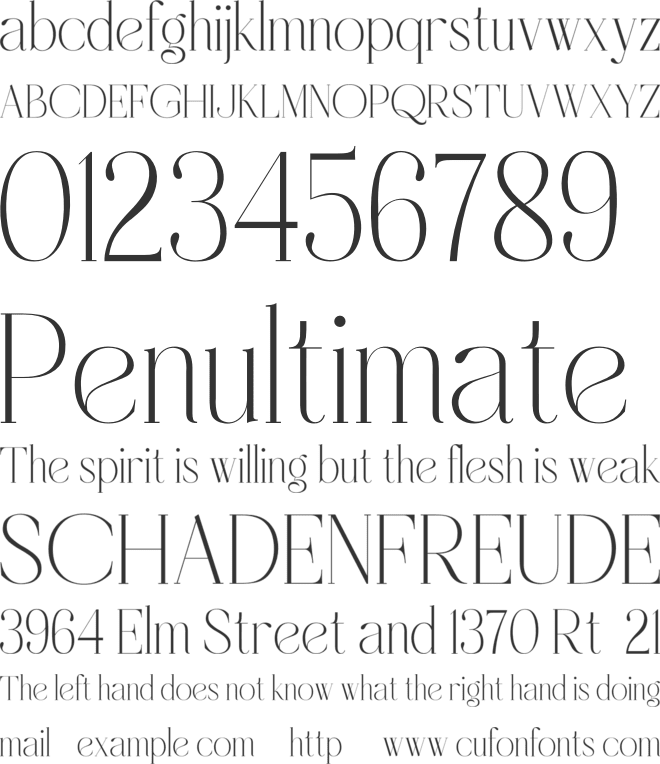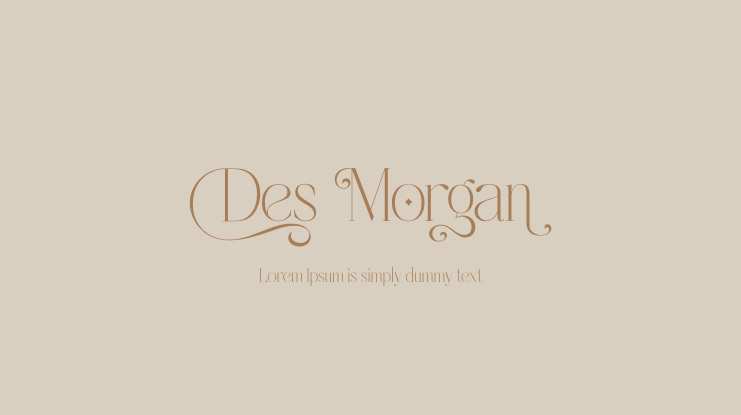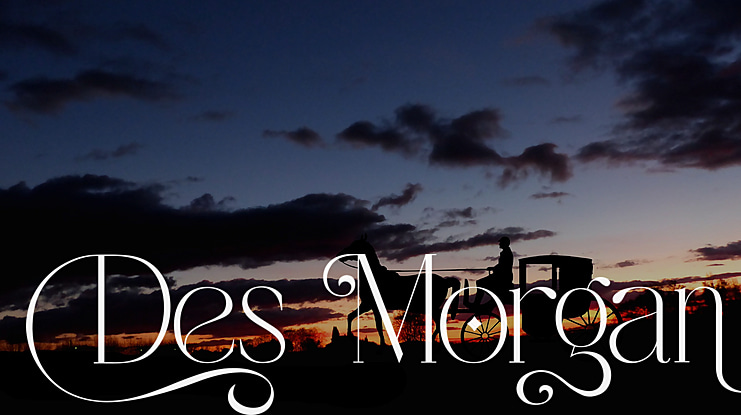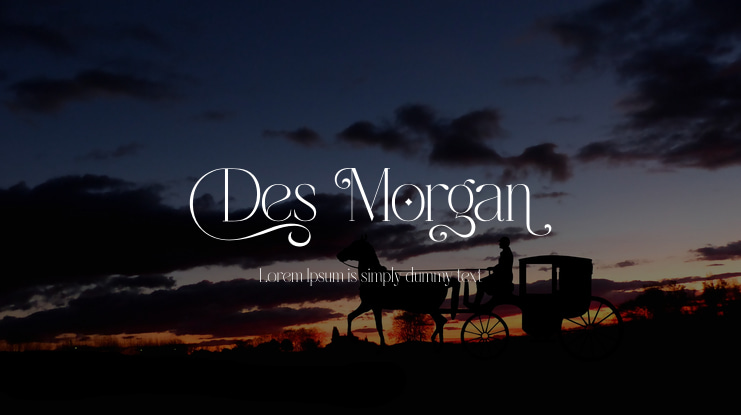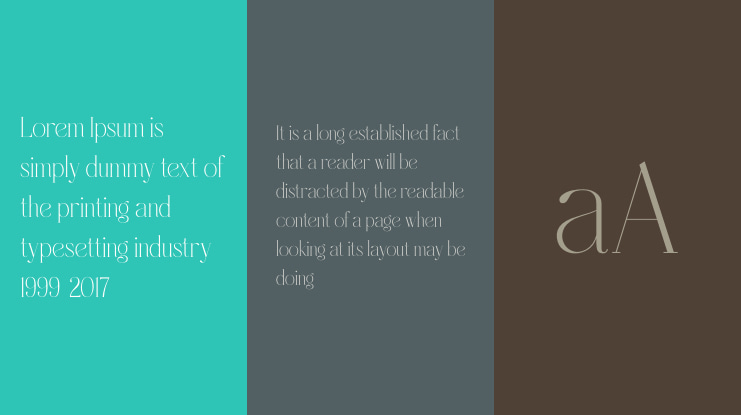
Des Morgan Font
Introducing Des Morgan. An unique, classic and elegant font with various alternates that will make your presentation or logo even more beautiful and stunning! . This font is perfect for branding, logos, wedding stationery, cards, gift designs, photography, watermark, product packaging and quotes. You won't get cute, whimsical, funny logos with this font. Only high-end, upscale, sophisticated Branding Design.
Des Morgan font preview